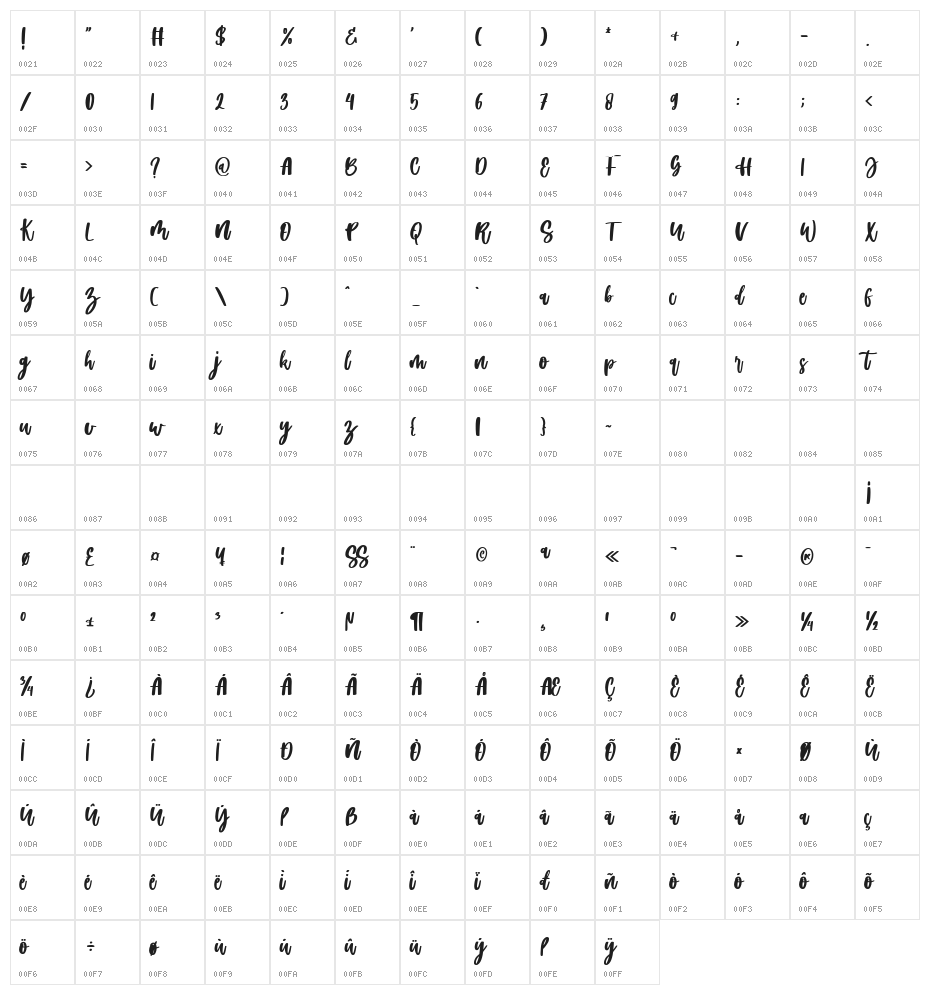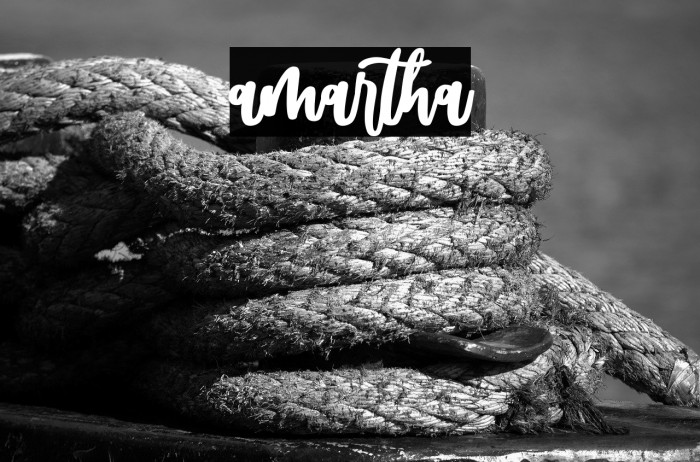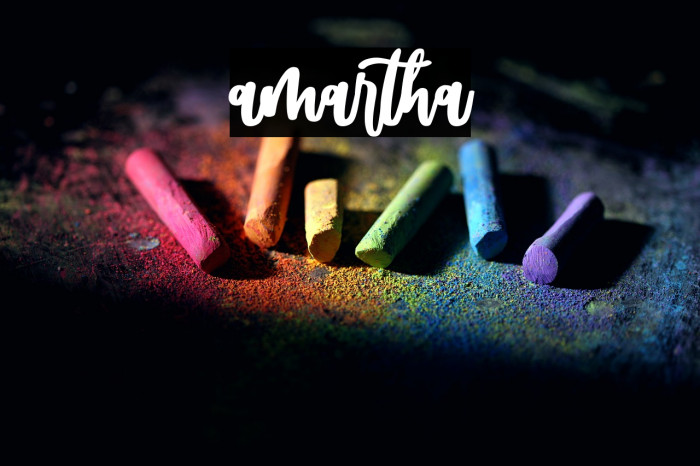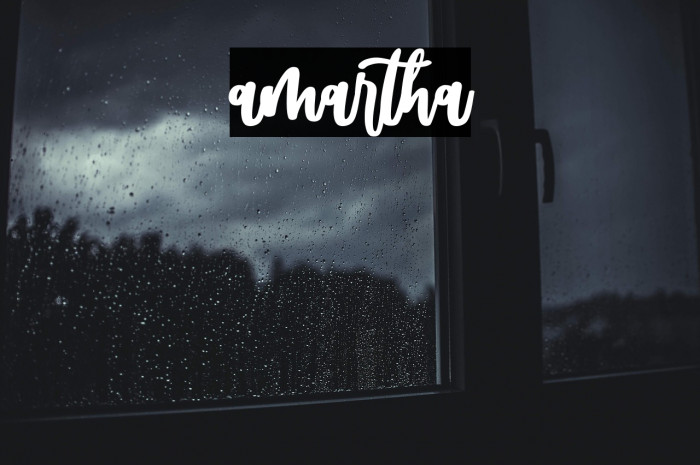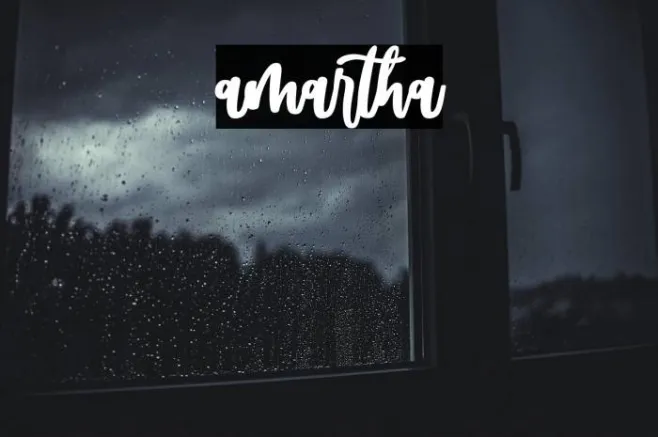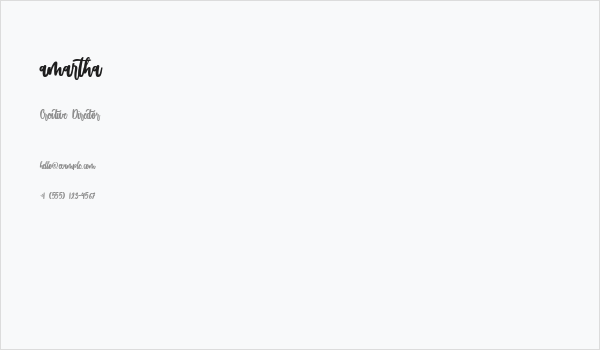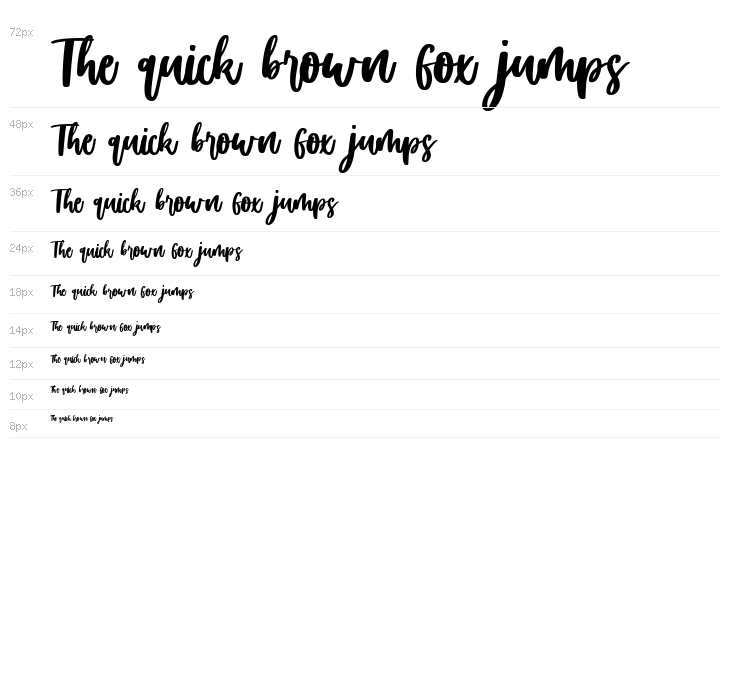
amartha Font
amartha Description
This font features a bold, flowing script style with a handwritten appearance. The letters are connected, giving it a smooth and continuous look, reminiscent of calligraphy. The uppercase letters are slightly larger and more elaborate, while the lowercase letters maintain a consistent flow. The numbers and special characters are designed to match the overall style, ensuring a cohesive look across all text. The font's thick strokes and rounded edges contribute to its friendly and approachable feel, making it suitable for a variety of creative projects.
| Proposed Projects | Ideal for wedding invitations, greeting cards, logos, and branding materials. |